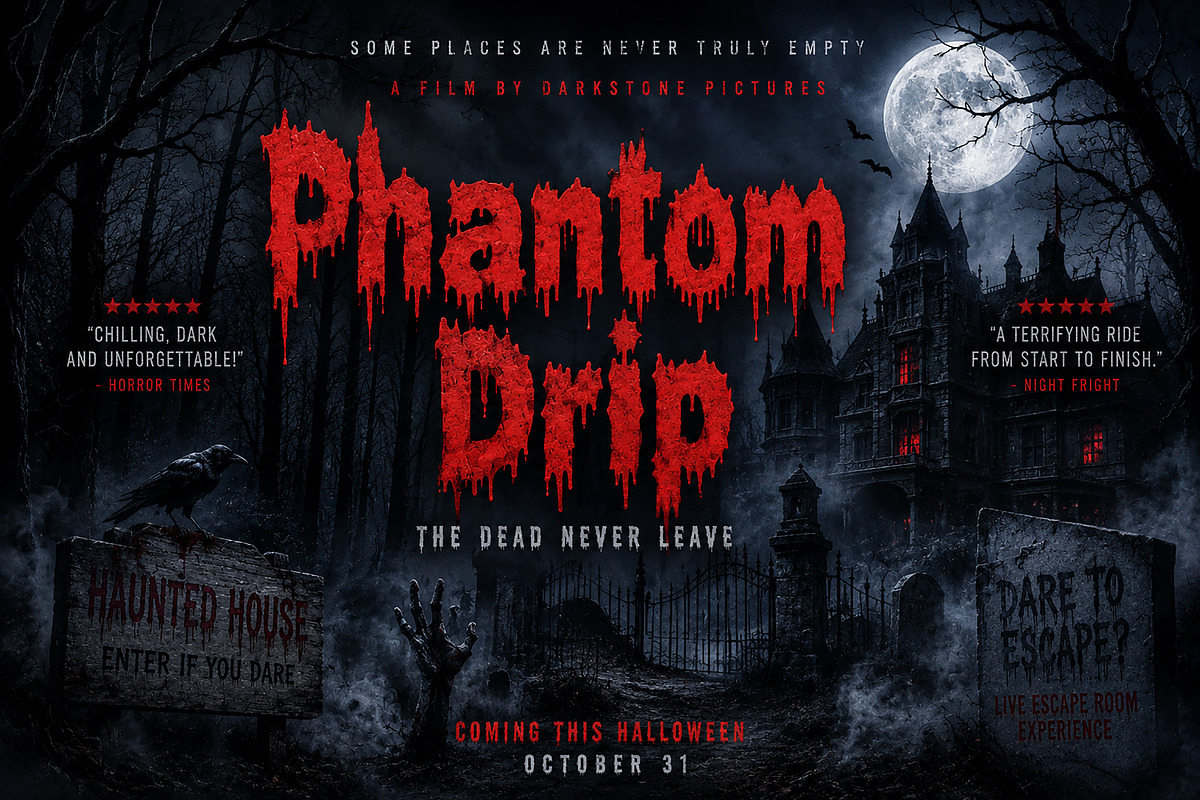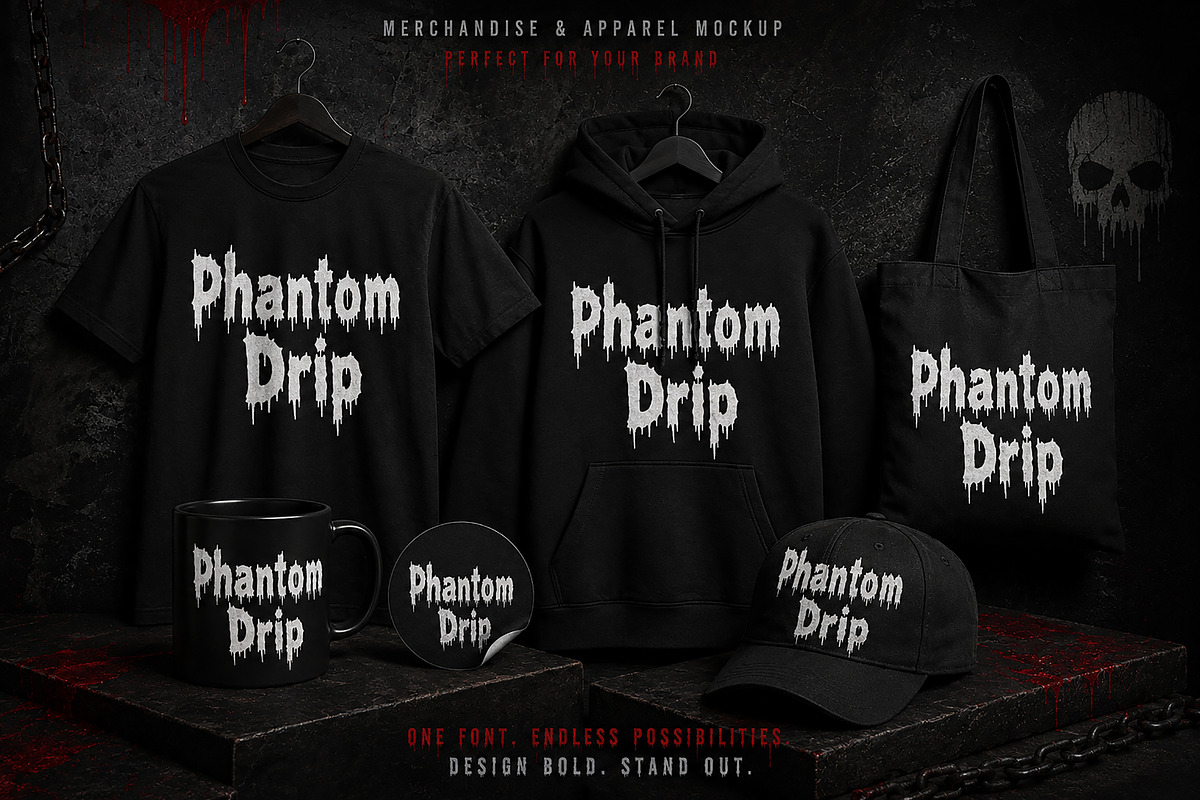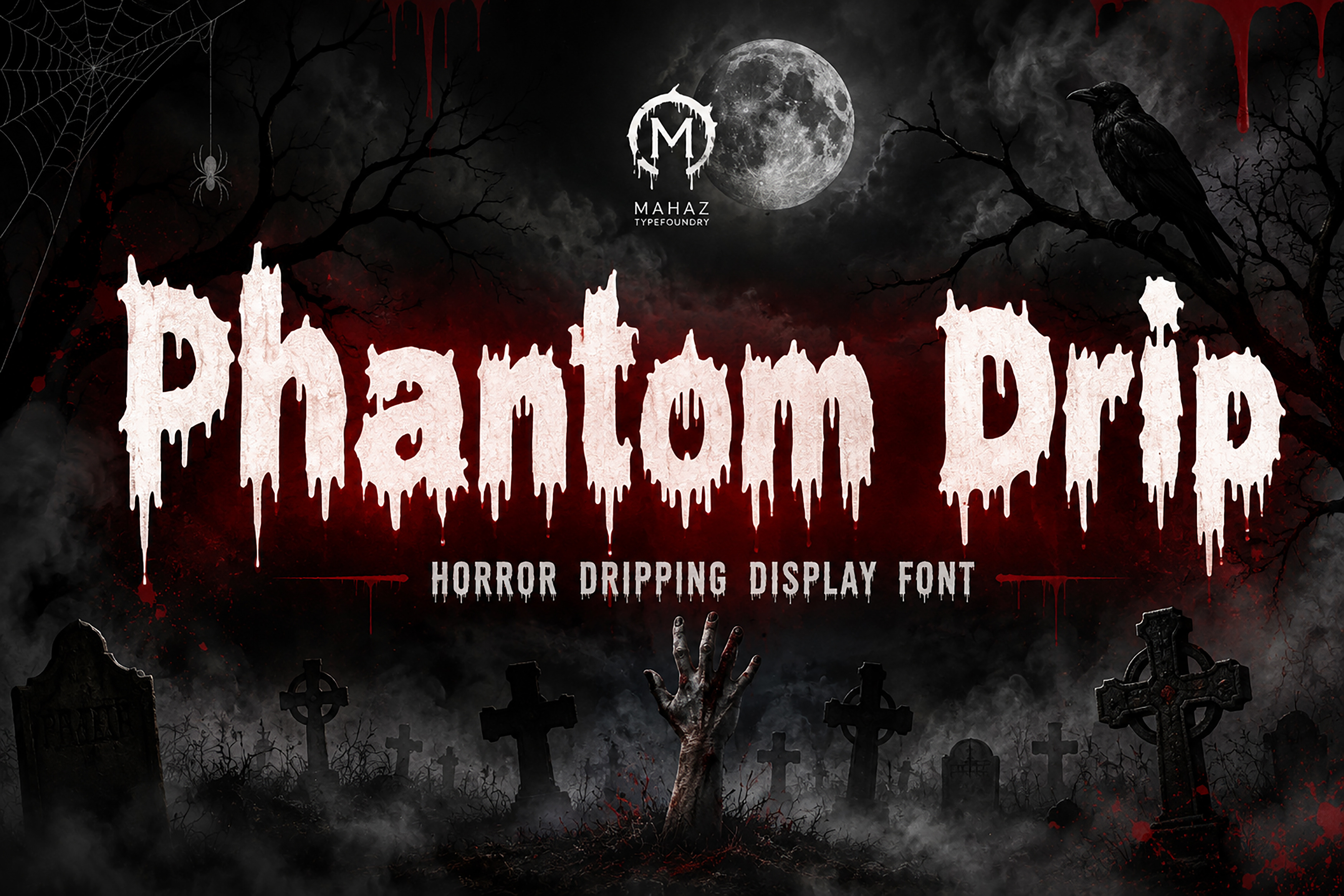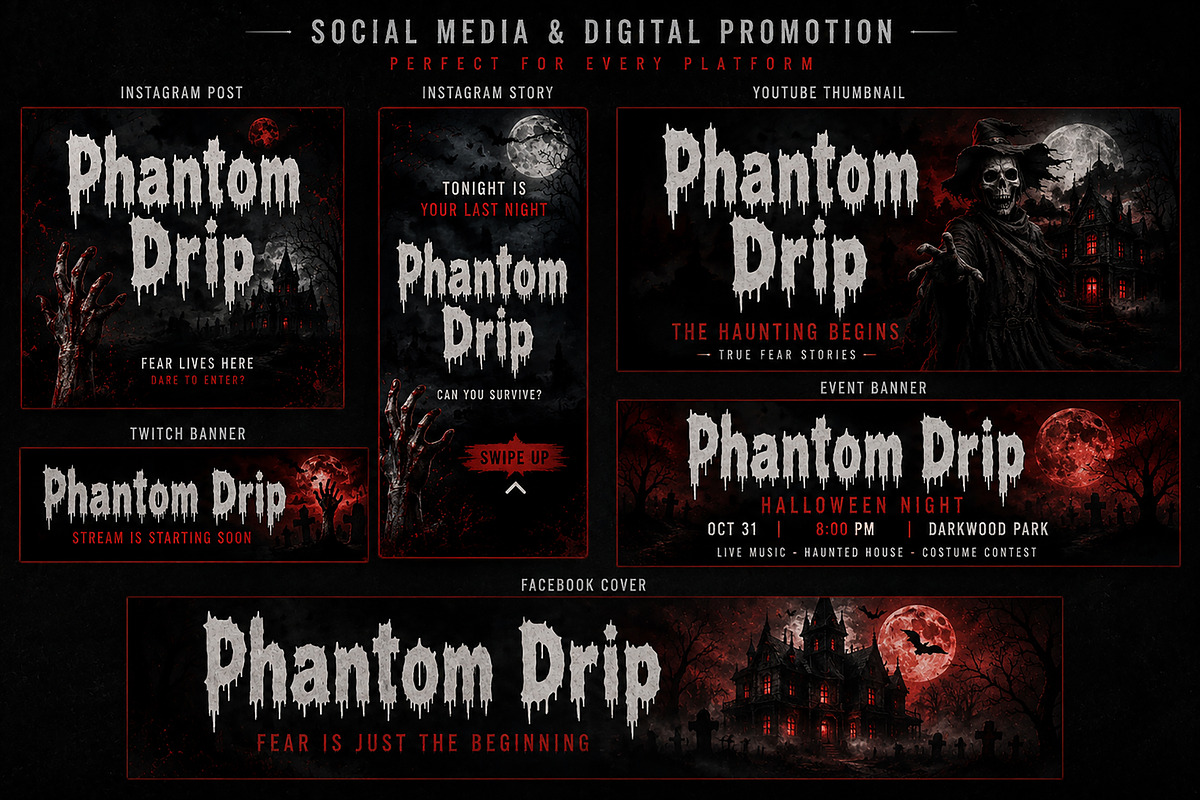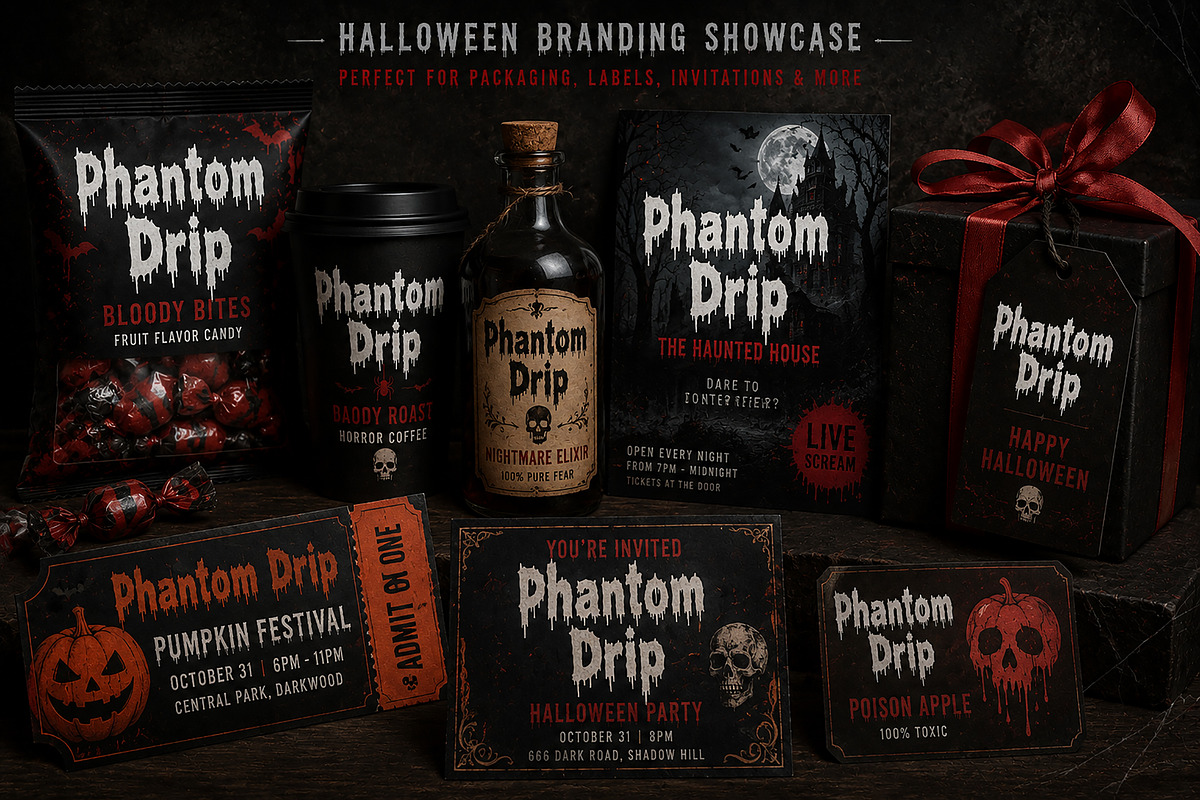
Phantom Drip – Horror Display Font
Phantom Drip – Horror Dripping Display Font
Phantom Drip is a bold and terrifying horror display font featuring dramatic dripping letterforms inspired by haunted houses, horror movies, Halloween nights, zombies, ghosts, and creepy vintage posters. Every character is carefully designed to create a chilling atmosphere, making it the perfect choice for spooky branding and eye-catching headlines.
Whether you're creating a Halloween event poster, horror movie title, haunted attraction branding, escape room graphics, YouTube thumbnails, or creepy merchandise, Phantom Drip delivers a striking and unforgettable horror aesthetic.
Its unique dripping style instantly adds fear, suspense, and dark cinematic energy to any design project.
Horror Movie Posters
Halloween Party Invitations
Haunted House Branding
Escape Room Graphics
Zombie Festival Posters
YouTube Thumbnails
Twitch Streaming Graphics
Social Media Promotions
T-Shirt Designs
Hoodie Designs
Stickers
Mug Designs
Tote Bags
Album Covers
Game Titles
Horror Logos
Event Flyers
Merchandise Branding
High-Quality Display Typeface
Why You'll Love Phantom Drip
Unique dripping horror style
Perfect for Halloween and spooky projects
Bold and highly readable display font
Great for both print and digital media
Ideal for branding, merchandise, and promotional graphics
Professional quality with a cinematic horror feel
Bring your darkest ideas to life with Phantom Drip and create designs that leave a lasting impression.